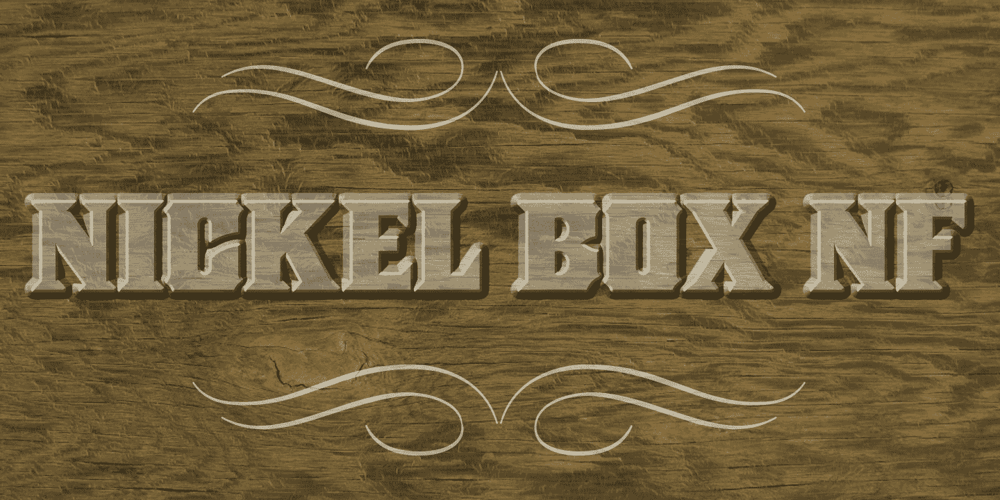
Nickel Box NF Font Family was designed by published by Nick’s Fonts. Nickel Box NF contains 1 styles and family package options. No mystery here—it’s a larrupin’ good lighter version of the original Whiz-Bang Woodtype goody, Dime Box. Both versions of this font support the Latin 1252, Central European 1250, Turkish 1254 and Baltic 1257 codepages.